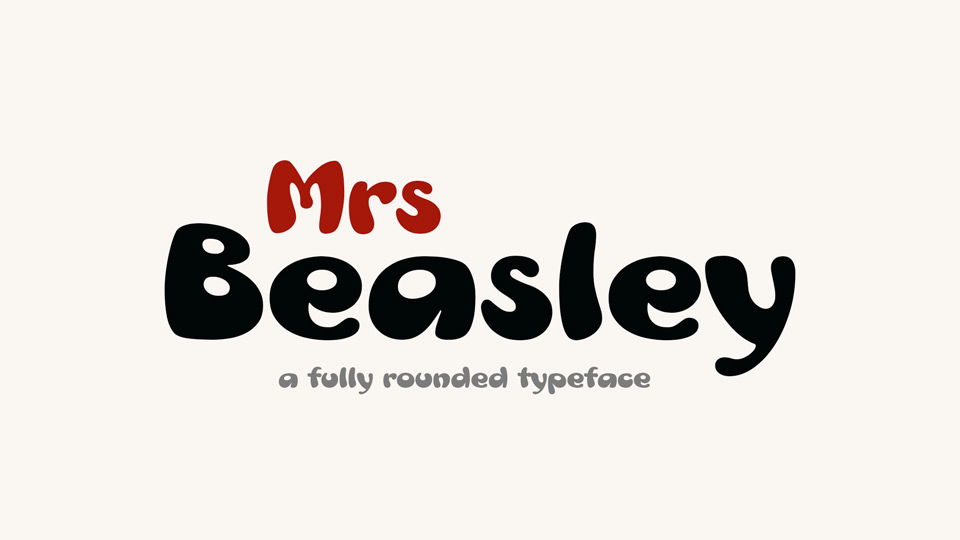
Download Mrs Beasley font, a fully rounded, friendly display typeface for nice headlines. Its funny and cuddly look is perfect for crafts, cards, posters, games, kids products and more.
Designer: Frank Baranowski